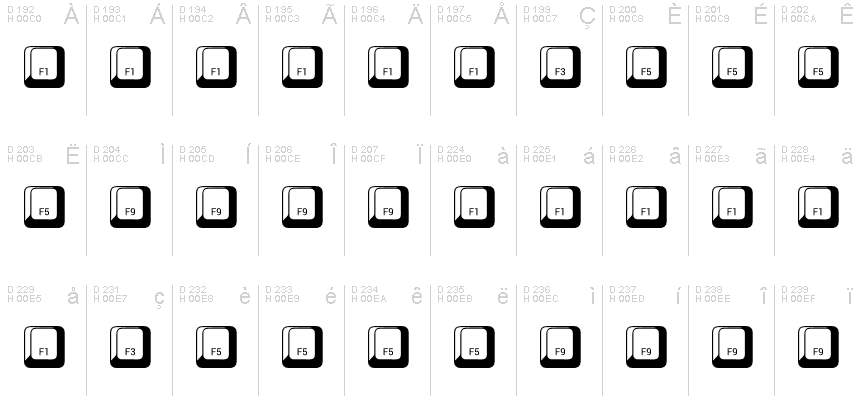
212 Keyboard Functions is a captivating display font designed by 212 fonts. With its decorative style and semi-light weight, this font brings a touch of whimsy to any project.
Its unique design draws inspiration from computer keyboard buttons, making it ideal for tech-related designs, software interfaces, and gaming projects. The playful curves and intricate details of 212 Keyboard Functions add a creative flair to posters, logos, and branding materials. Let your imagination run wild with this eye-catching font that will surely make your designs stand out from the crowd.